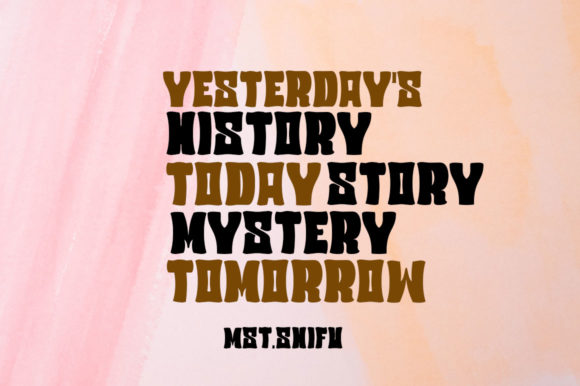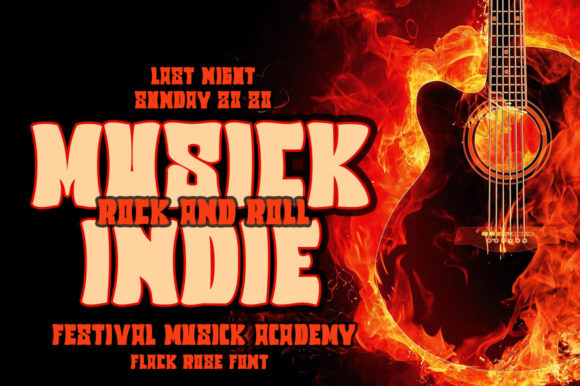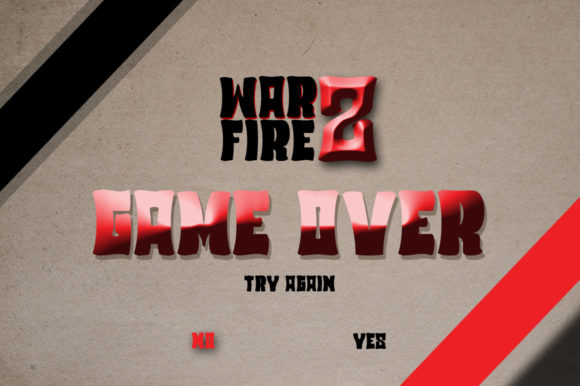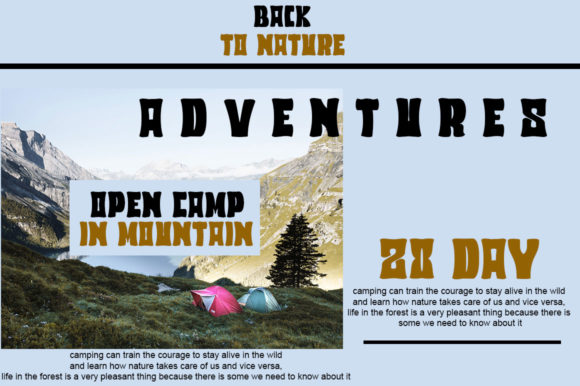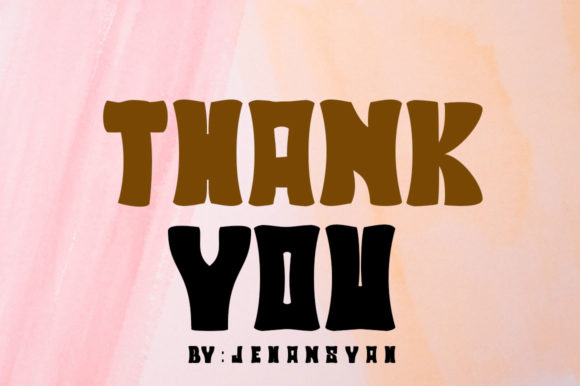
Introducing Flack Rose Font: The Bold and Chunky Lettered Display Font
Are you tired of using the same old fonts for your creative projects? Look no further! Flack Rose Font is here to take your designs to the next level. This bold and chunky lettered display font is perfect for adding a touch of personality to your work. In this article, we’ll dive into the features and benefits of Flack Rose Font, and explore how it can bring your creative ideas to life.
What is Flack Rose Font?
Flack Rose Font is a bold and chunky lettered display font that is designed to make a statement. Its unique and eye-catching design makes it perfect for use in a variety of creative projects, from posters and flyers to social media graphics and branding materials. The font’s bold and chunky letters are sure to grab attention and add a touch of personality to your work.
Key Features of Flack Rose Font
- Bold and Chunky Design: Flack Rose Font features bold and chunky letters that are sure to grab attention.
- Unique and Eye-Catching: The font’s unique design makes it perfect for use in creative projects where you want to stand out.
- Easy to Read: Despite its bold design, Flack Rose Font is easy to read, making it perfect for use in a variety of applications.
- High-Quality: Flack Rose Font is a high-quality font that is designed to deliver exceptional results.
Benefits of Using Flack Rose Font
So, why should you choose Flack Rose Font for your creative projects? Here are just a few benefits of using this amazing font:
- Adds Personality to Your Work: Flack Rose Font adds a touch of personality to your work, making it stand out from the crowd.
- Perfect for Display Text: The font’s bold design makes it perfect for use in display text, such as headings and titles.
- Easy to Pair with Other Fonts: Flack Rose Font is easy to pair with other fonts, making it perfect for use in a variety of design applications.
- Great for Branding and Marketing Materials: The font’s unique design makes it perfect for use in branding and marketing materials, such as logos, brochures, and business cards.
How to Use Flack Rose Font
Using Flack Rose Font is easy! Here are a few tips for incorporating it into your creative projects:
- Use it as a Display Font: Flack Rose Font is perfect for use as a display font, such as in headings and titles.
- Pair it with Other Fonts: The font’s bold design makes it easy to pair with other fonts, such as sans-serif fonts like Arial or Helvetica.
- Experiment with Different Colors: Flack Rose Font looks great in a variety of colors, so don’t be afraid to experiment and find the perfect color for your design.
In conclusion, Flack Rose Font is a bold and chunky lettered display font that is perfect for adding a touch of personality to your creative projects. Its unique and eye-catching design makes it perfect for use in a variety of applications, from posters and flyers to social media graphics and branding materials. With its easy-to-read design and high-quality construction, Flack Rose Font is sure to become a favorite in your font collection.